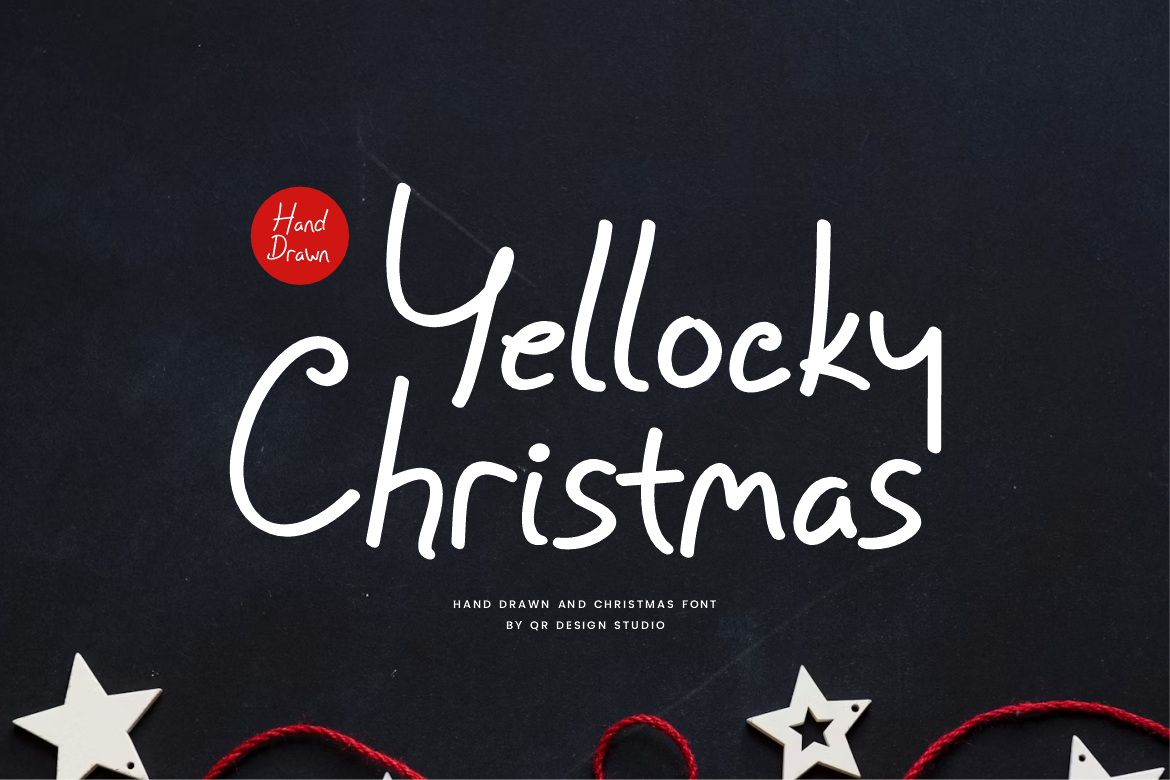
Yellocky Christmas - Hand Drawn Font
Yellocky Christmas Font is a hand drawn and authentic display font. The font is suitable for any branding project like poster, logo, Christmas, and many more. Outstanding in a wide range of contexts.